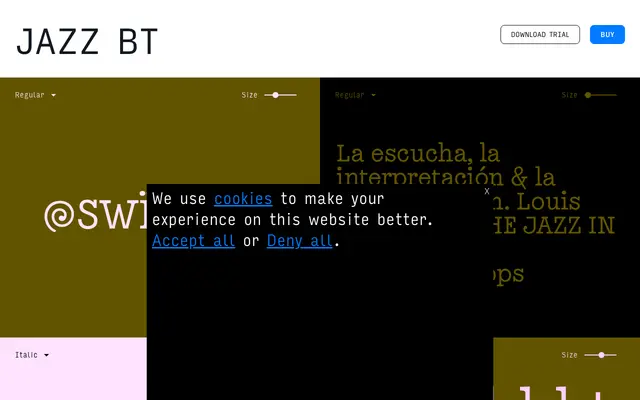
Jazz BT specimen from Bastarda
A semi-display slab serif with heavy teardrop terminals and Art Nouveau proportions in the uppercase, suited to editorial and branding work at headline scale.
Two styles, Regular and Italic, built around generous proportions and pronounced teardrop-shaped terminals that give the face a bold graphic presence without collapsing into purely decorative territory. The uppercase letterforms carry clear Art Nouveau references in their counterforms and ornamental details, making all-caps settings particularly effective for headlines, section titles and logotypes. The foundry positions it for mid-length reading contexts such as magazines and brochures, though its character reads most strongly at display sizes.
A slab serif with heavy teardrop terminals and Art Nouveau influences in the uppercase, positioned by the foundry as semi-display; the ornamental proportions and decorative counterforms place it firmly in display slab territory.